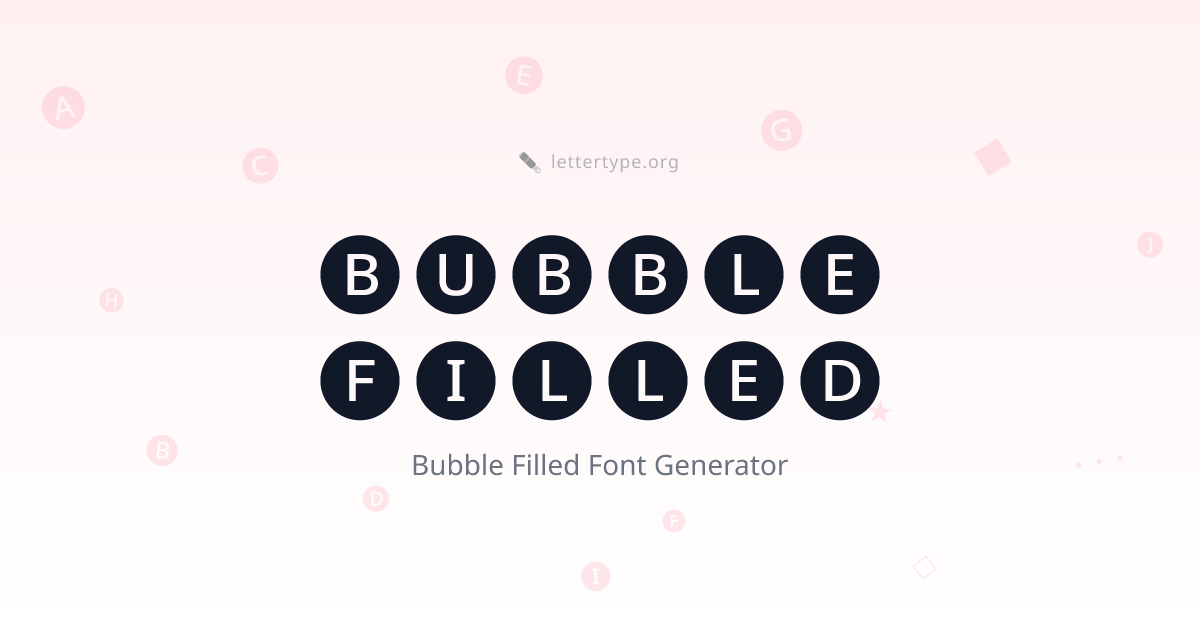
Bubble Filled Font Generator โ ๐ ๐ ค๐ ๐ ๐ ๐ Bold Bubble Text
Bubble filled font takes the playful circle concept of bubble text and fills each circle with solid color โ creating bold, high-contrast letters that command attention. Perfect for profiles that want the fun of bubble style with maximum visual impact.
What Is Bubble Filled Font?
Bubble filled font uses Unicode characters from the Enclosed Alphanumeric Supplement block (U+1F150โU+1F169). These are negative circled latin letters โ each letter appears white on a black circular background, creating a striking inverted look.
The filled circles provide much more visual weight than outline bubble letters, making them ideal for high-contrast design, bold usernames, and anywhere you want maximum visual impact.
Bubble Filled vs Regular Bubble
| Style | Look | Best For |
|---|---|---|
| Bubble | โทโคโโโโ | Light, airy, kawaii |
| Bubble Filled | ๐ ๐ ค๐ ๐ ๐ ๐ | Bold, high-contrast, impactful |
Use regular bubble for soft aesthetics and fun profiles. Use filled bubble when you want maximum visual presence โ the bold black circles make text impossible to miss.
Where to Use Bubble Filled Text
Instagram bios โ filled bubble letters create an immediately bold and distinctive profile aesthetic.
Discord usernames and nicknames โ ๐ ๐ ค๐ ๐ ๐ ๐ names are among the most visually striking in any server.
TikTok comments and captions โ filled bubble text in comments gets noticed instantly.
Gaming tags โ stand out in lobbies, leaderboards, and streaming profiles with a distinctive bold bubble tag.
Twitter and X โ use filled bubble for specific words you want to emphasize in tweets.
Announcements and calls to action โ the high-contrast filled circles make key words or phrases impossible to miss.
How are filled bubble letters different from regular bubble letters?
Regular bubble letters (โถโโ, โโโฉ) use outline circles โ the letter appears inside a ring. Filled bubble letters (๐ โ๐ ฉ) use solid filled circles โ the letter appears white on a black background. Both are standard Unicode but in different code blocks.